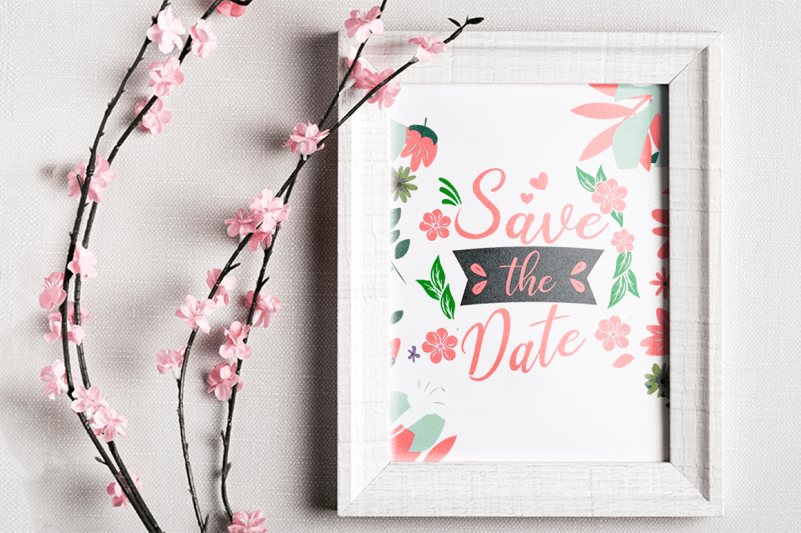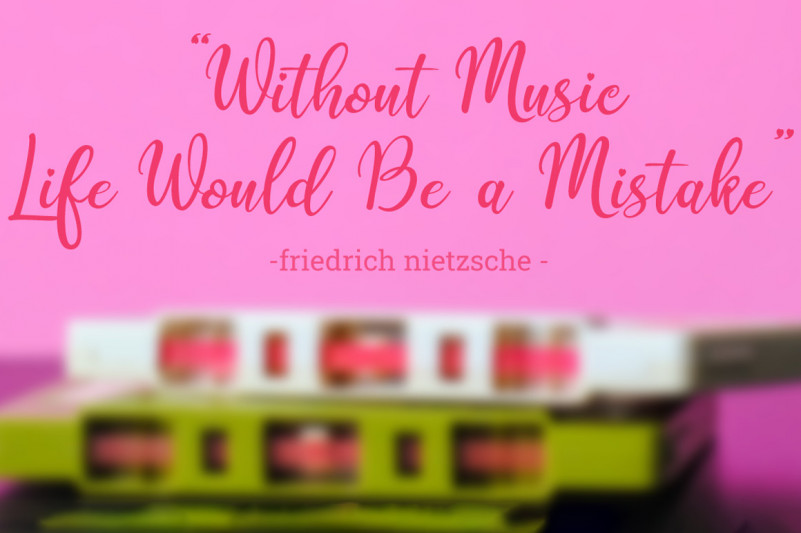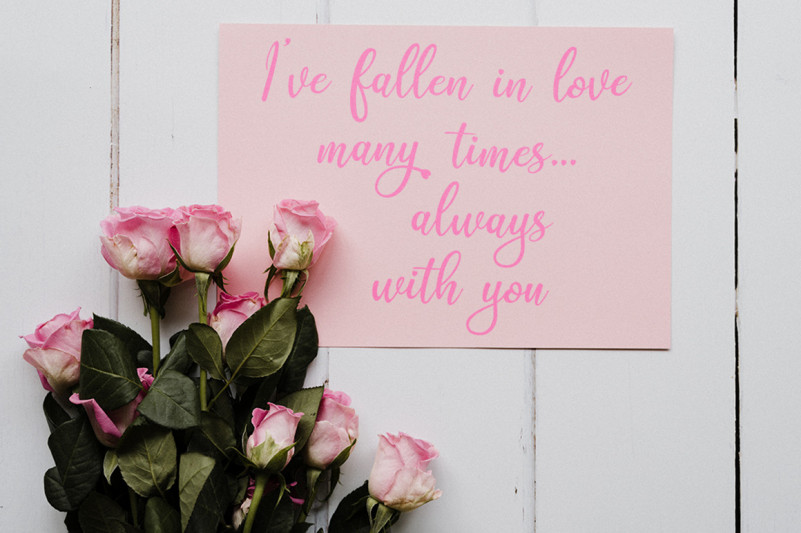
Quindelia Script Font
Quindelia Script Font is a beautiful font with lots of love and affection in it, a unique ligature, a smooth and elegant stroke, there are six alternatives in it.
Quindelia Font is perfect for weddings, events, invitations, cards, quotes, displays, logos, blog sliders, special addresses, stamps, packaging, greeting cards, romance, etc.